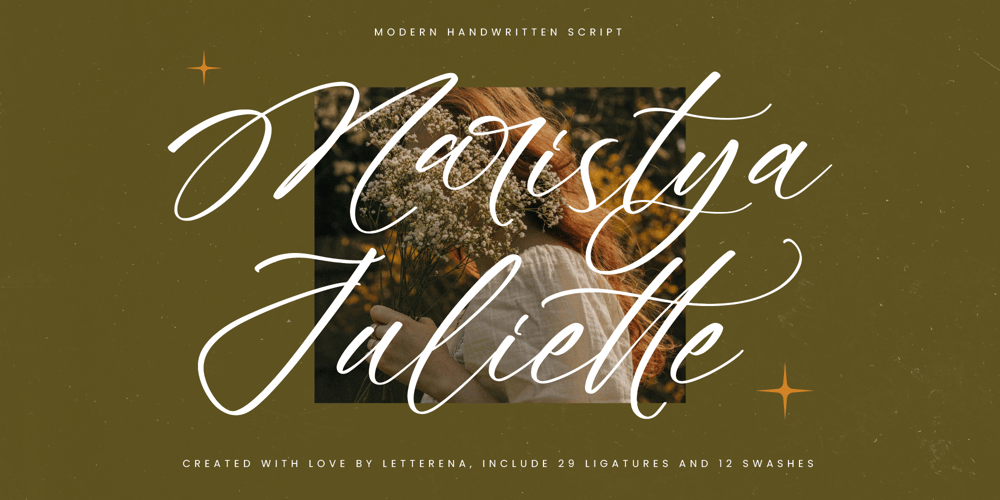
Maristya Juliette
Maristya Juliette font
Maristya Juliette Font Family was designed by Heru Utama Putra and published by Letterena Studios. Maristya Juliette contains 2 styles and family package options. Maristya Juliette – Modern Handwritten Script , from Letterena, is a Luxury Script font, suitable for any projects such as: logos, branding projects, homeware designs, product packaging, mugs, quotes, posters, shopping bags, t-shirts, book covers, name card, invitation cards, greeting cards, label, photography, watermark, special events, and all your other luxury and beautiful projects that need a Luxury Script taste.